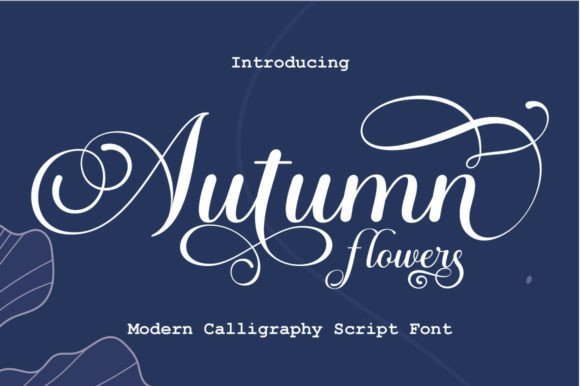
Unlock the Beauty of Autumn with a Touch of Elegance
As I sat in my garden on a crisp autumn morning, surrounded by the vibrant hues of fallen leaves and blooming flowers, I couldn’t help but feel inspired to create something special. The air was filled with an energy that sparked my imagination, and I knew exactly what I needed to capture its essence – a beautiful font that would bring a personal touch to my designs.
Enter the Autumn Flowers Font, a modern and stylish calligraphy script font that embodies the confidence and exuberant energy of the season. With its elegant touch and versatility, this font is perfect for designers looking to add a unique flair to their projects. From wedding invitations to fashion branding and logotypes, the Autumn Flowers Font is sure to make a lasting impression.
Autumn Flowers Font Key Features
- Font Size: 5,000+ glyphs, including Latin, Cyrillic, and Greek alphabets
- Unique Characteristics: Features intricate, hand-drawn designs inspired by autumn flowers and foliage
- Style Variations: Includes 3 styles: Regular, Bold, and Outline, allowing for customizable font designs
Designer Review: Autumn Flowers Font
Overall, I think the Autumn Flowers Font is a lovely addition to any design project that requires a touch of seasonal charm. Here are some of the things that work well:
- ✨ The intricate details of the flowers are beautifully designed and add a lot of visual interest to the font.
- ✨ The font’s organic feel is perfect for projects that need a more whimsical or natural vibe.
- ✨ The font is highly customizable, making it easy to adjust the colors, sizes, and spacing to fit your design needs.
However, I do have a few concerns:
- ⚠️ The font can be a bit difficult to read at smaller sizes, which may limit its use in certain applications.
- ⚠️ Some of the characters may not be as intricately detailed as others, which can create a disjointed feel in certain words or phrases.
- ⚠️ The font may not be suitable for projects that require a more modern or sleek aesthetic.
In terms of overall impression, I think the Autumn Flowers Font is a great choice for designers who want to add a touch of seasonal charm to their projects. While it may have some limitations, its unique details and customizability make it a great addition to any design library.
Tips for Getting the Most Out of the Autumn Flowers Font
Here are some tips for using the Autumn Flowers Font effectively:
- Use the font for titles and headings to add a touch of elegance to your designs.
- Combine the font with other autumn-inspired elements, such as leaves and acorns, to create a cohesive theme.
The Autumn Flowers Font is perfect for:
- Seasonal greeting cards and invitations
3. Calla
Calla is a modern and minimalist font that features a clean and simple design. It’s ideal for designers who want to create a fresh and contemporary look. Compared to Autumn Flowers Font, Calla has a more geometric and abstract design, making it perfect for digital projects, such as social media graphics and web design.